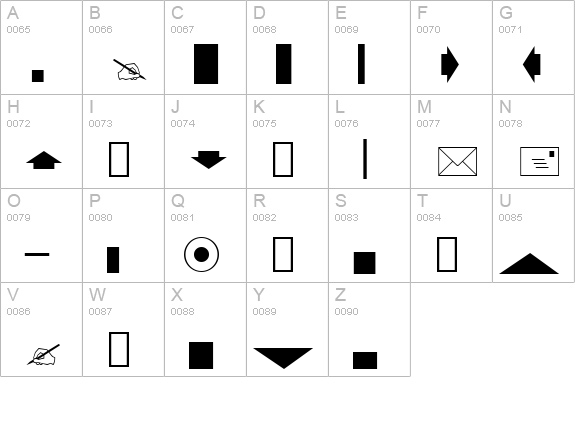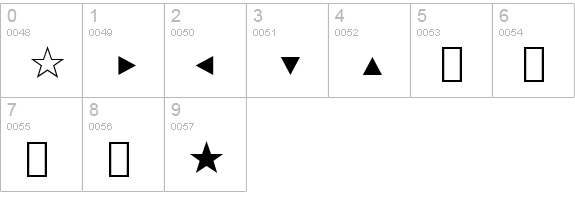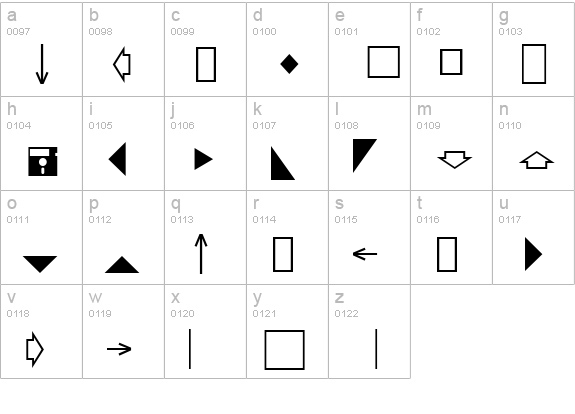
Nelco Symbols Font Details
Introducing Nelco Symbols font, a versatile and modern typeface designed to elevate your creative projects to new heights. This unique font features a sleek and stylish design with a wide range of symbols and icons to enhance your designs. With its clean lines and contemporary aesthetic, Nelco Symbols font is perfect for a variety of applications, from branding and logos to web design and print materials. What sets Nelco Symbols font apart is not only its visual appeal but also its accessibility - it is completely free to download at FontsMarket.com. This means that you can easily incorporate this stunning font into your projects without any extra cost. Whether you're a graphic designer, web developer, or hobbyist looking to add a touch of sophistication to your work, Nelco Symbols font is sure to impress. Download Nelco Symbols font today and unleash your creativity with this dynamic and eye-catching typeface. With its seamless integration into various design projects and its availability as a free download, Nelco Symbols font is a must-have addition to your font collection. Experience the power of this versatile font and take your designs to the next level with Nelco Symbols.